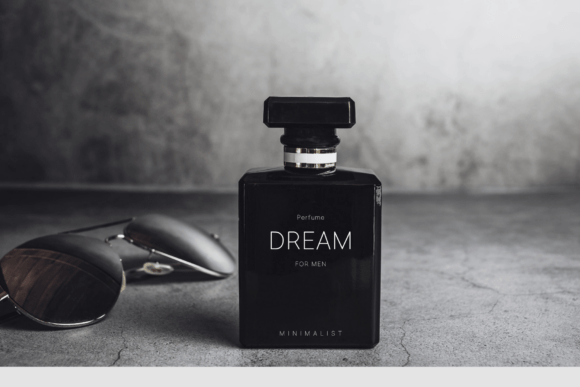
Classy Font
Classy is a simple and neat sans serif font designed to give a professional, modern and elegant impression to various creative projects. With clean and simple lines, this font is perfect for craft design, create logos, digital project, banner, poster, product fashion, packaging, books cover, magazine, headline, wedding invitation publications etc.